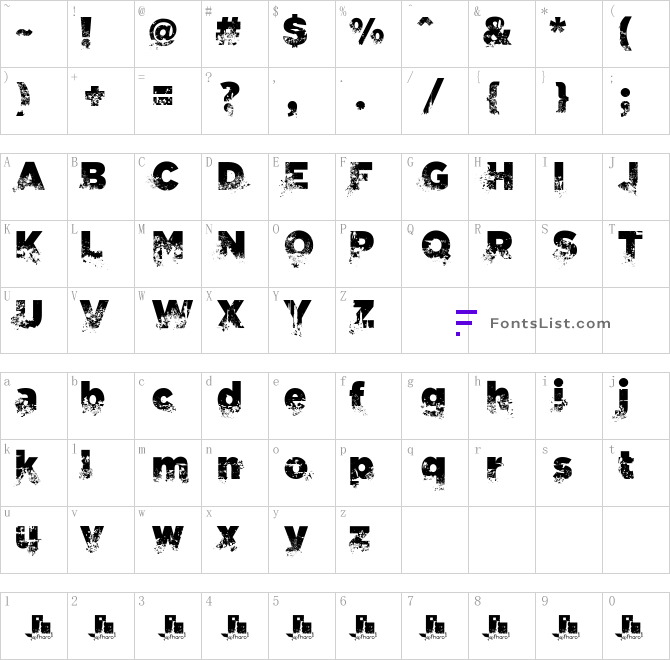
- Font Name:C.A. Gatintas
CAGatintas.ttf is a very beautiful artistic font, CAGatintas.ttf is widely used in the design and printing of various books and pictures,CAGatintas.ttf has a strong visual impact,CAGatintas.ttf is a commonly used font in newspapers, magazines and books, and is used in posters, e-commerce Poster design, store design, logo design, font design and other fields.CAGatintas.